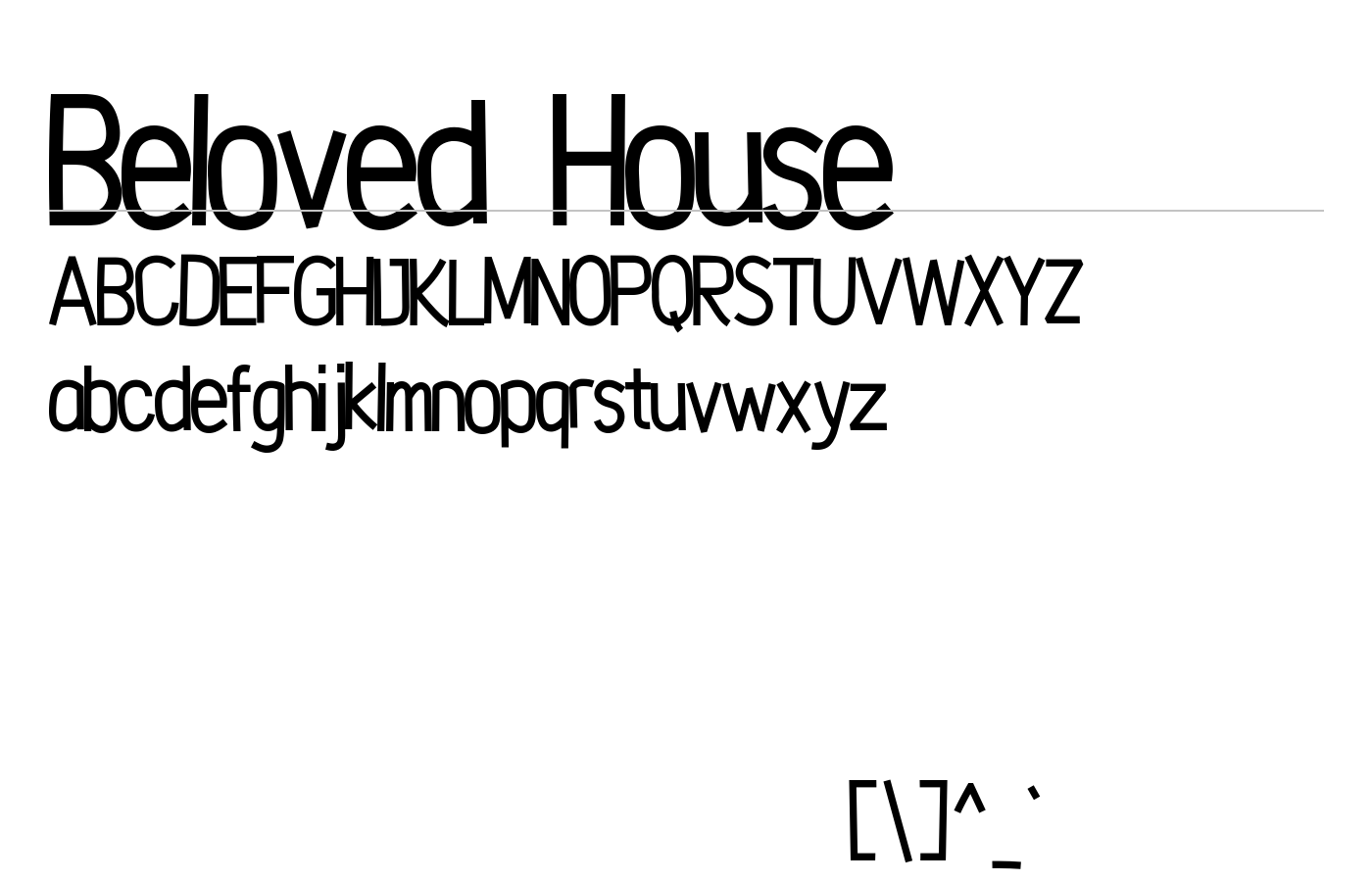
Beloved House is a quirky, narrow sans serif font with a tall x-height and playful irregularities that give it a hand-drawn, casual feel. Its uneven stroke widths and slightly tilted characters add charm and personality, making it ideal for creative projects, informal branding, or expressive headlines where a friendly and approachable vibe is desired. This font works well for eye-catching logos, posters, and editorial designs that want to stand out with a unique, youthful character.
Beloved House Font
About Beloved House Font